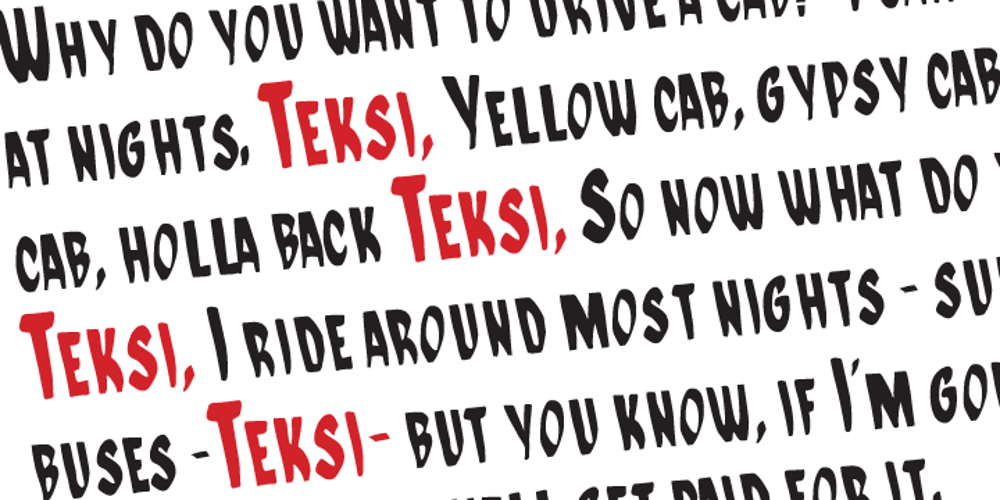
Teksi Font Family was designed by published by AdultHumanMale. Teksi contains 2 styles and family package options. Teksi Teksi I saw you everywhere, I just had to have you. Teksi is a marker felt style font, I’ve seen various hand drawn styles of this typeface or something similar on taxis and vans all over the island of Penang.This hand drawn style is slowly being replaced with boring Arials and other Serif printed fonts, so I wanted to capture the charm of the original. A heavily weighted font which could work for comic styles and headlines. I hope you like it.